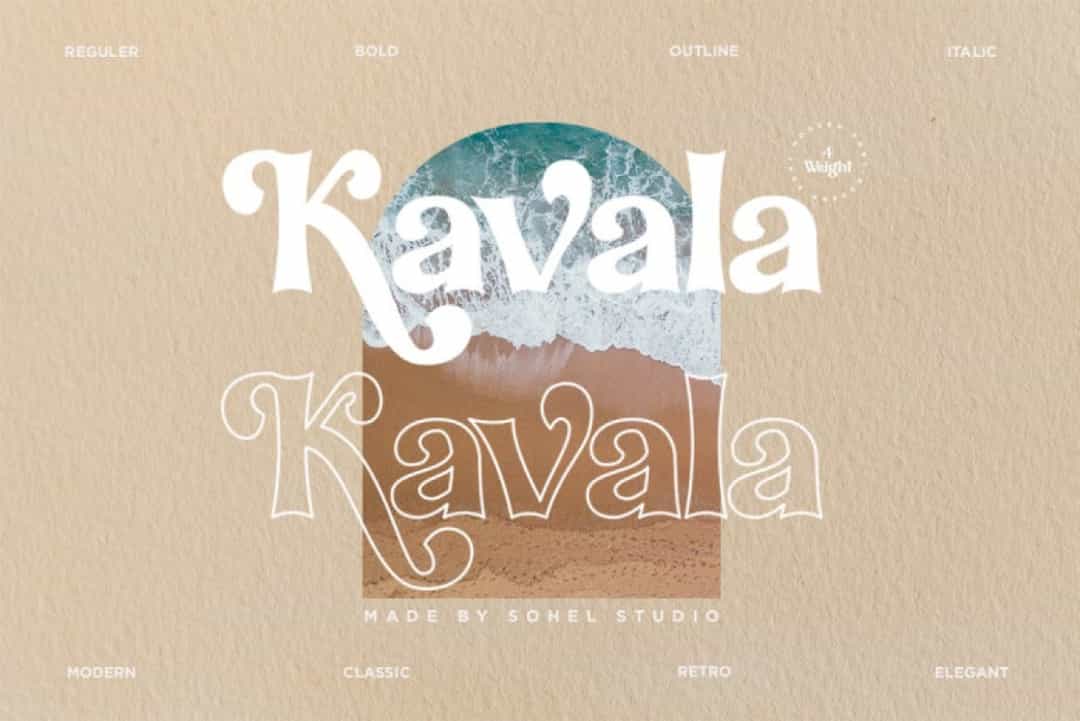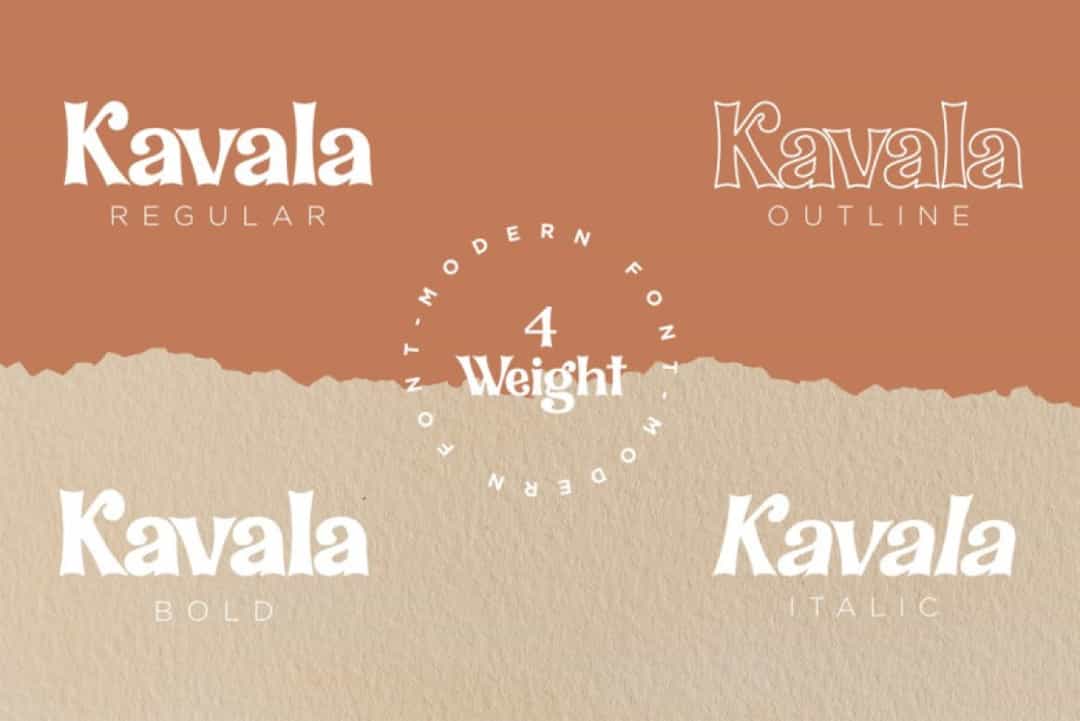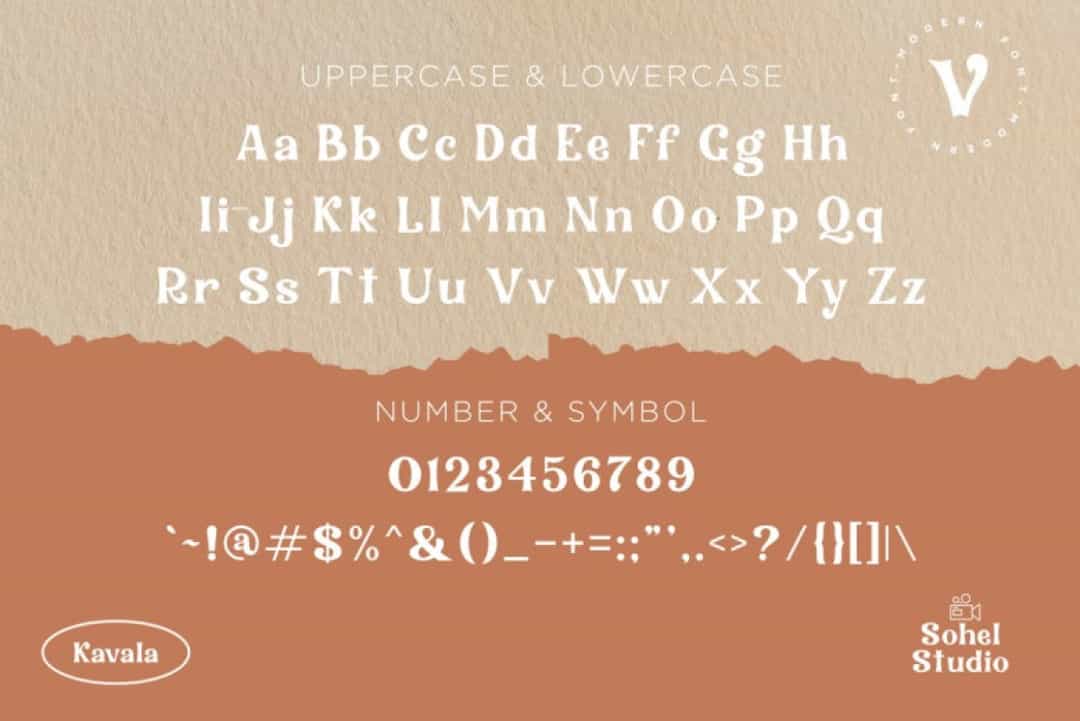
Kavala is a modern serif font. Taking inspiration from classic retro styles, this font will leave an impactful mark in products, quotes designs, header text logos and advertising as well as branding campaigns and more.